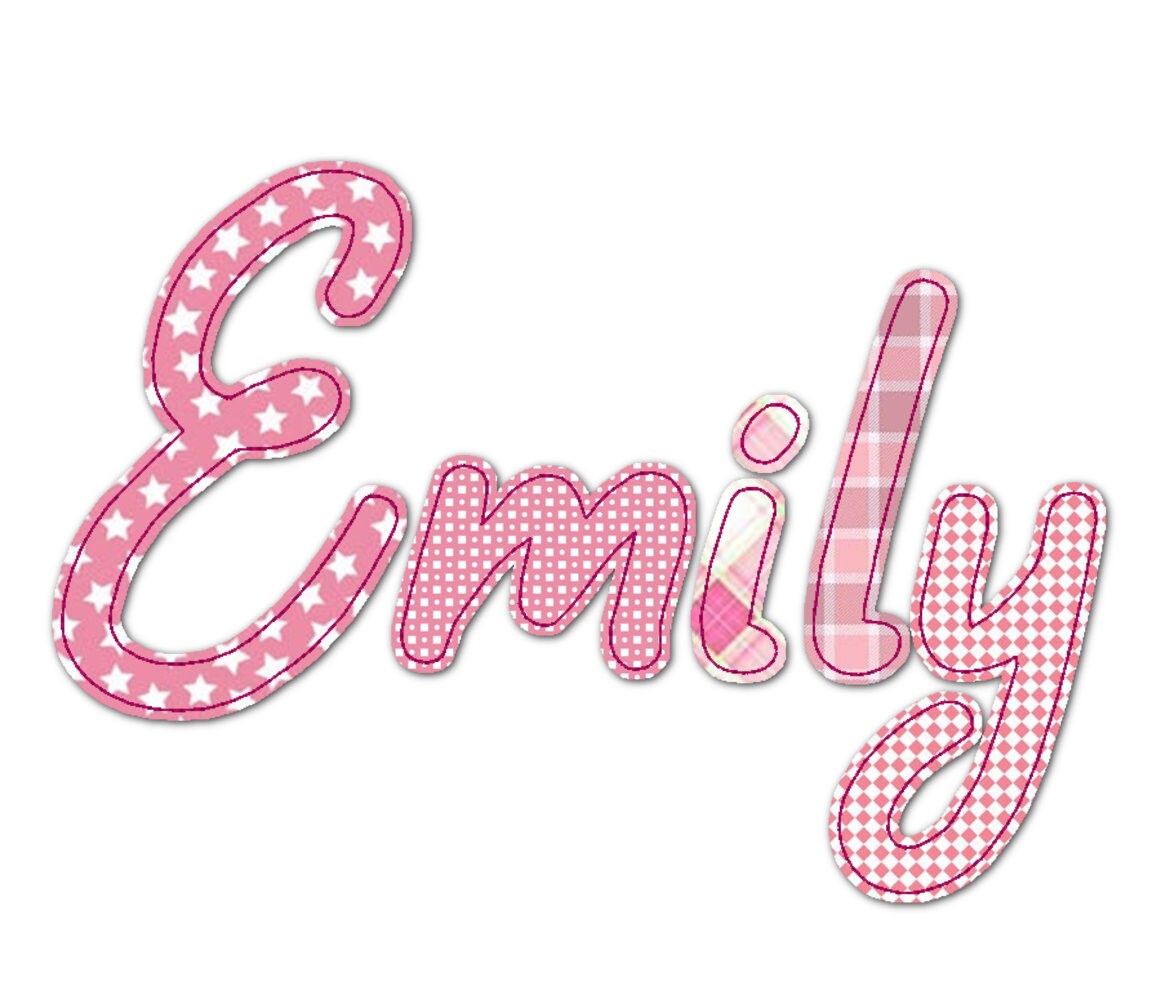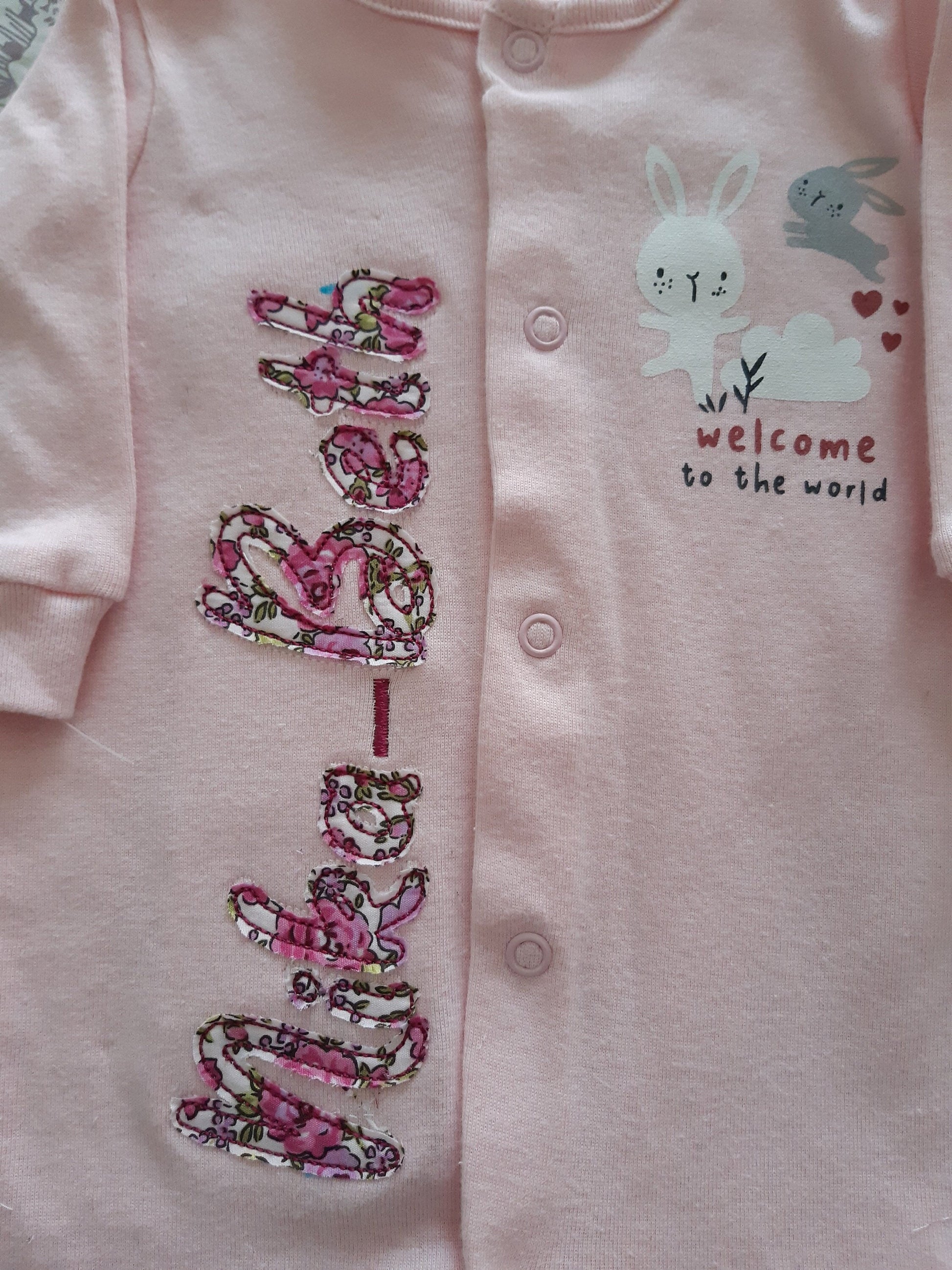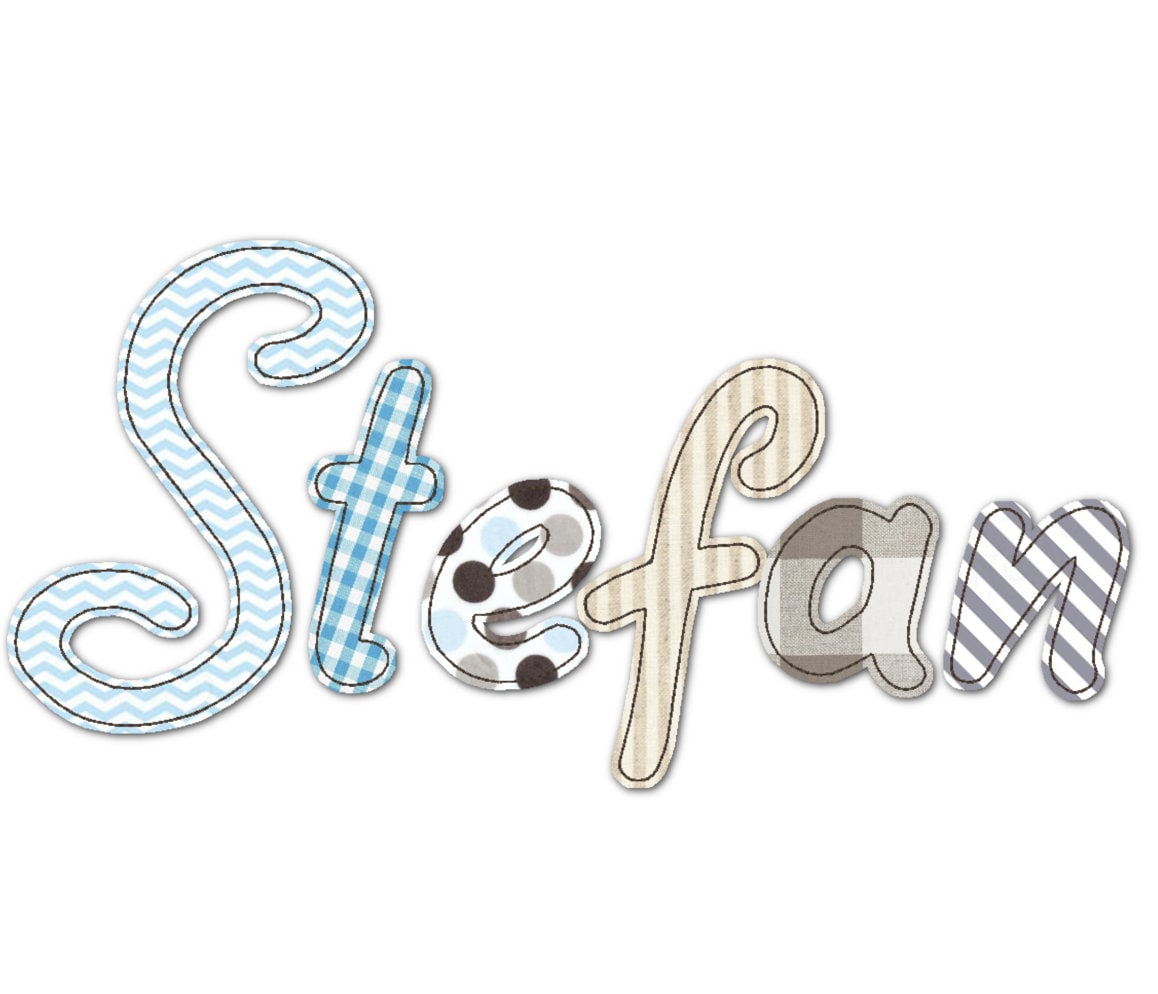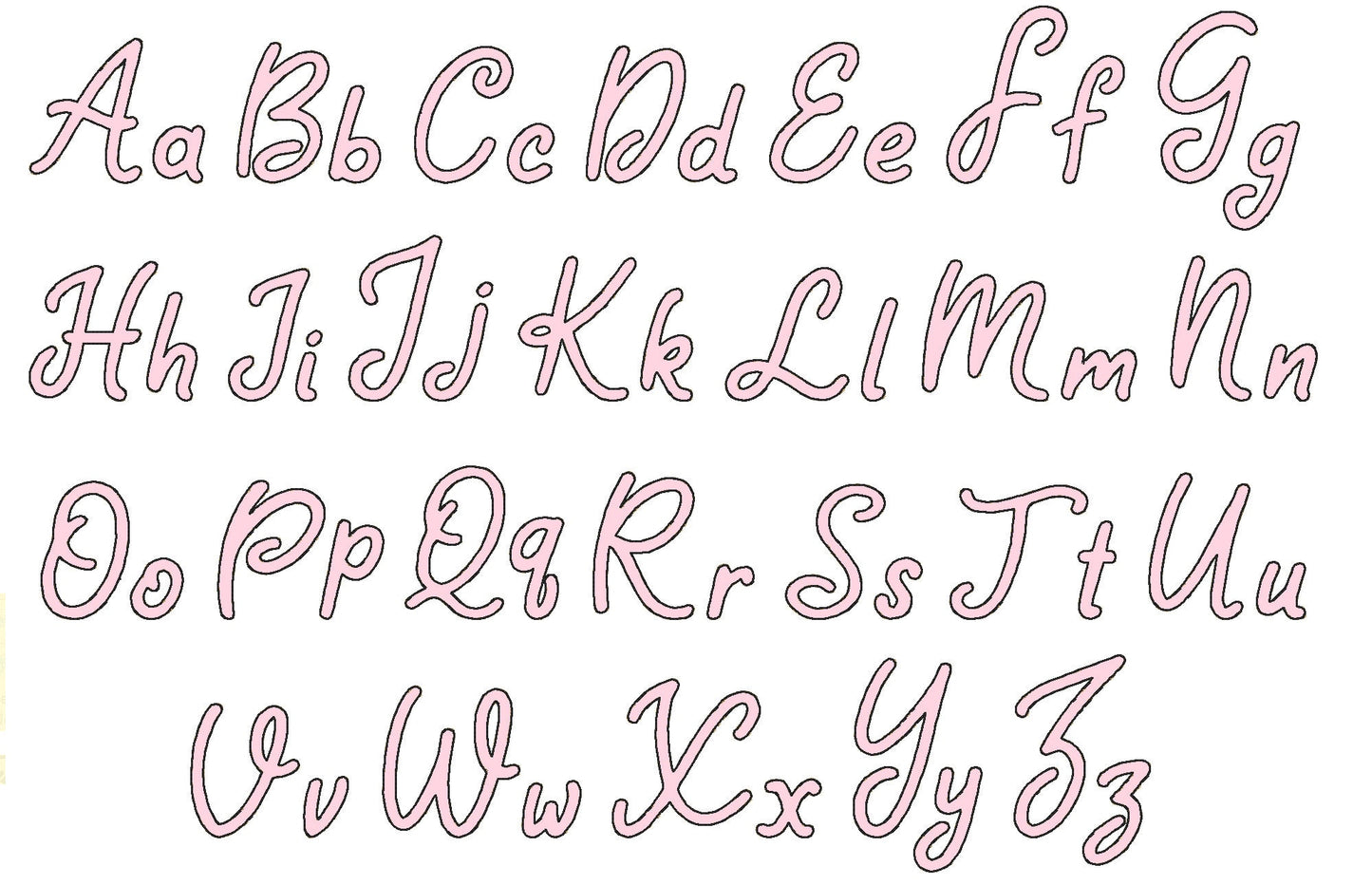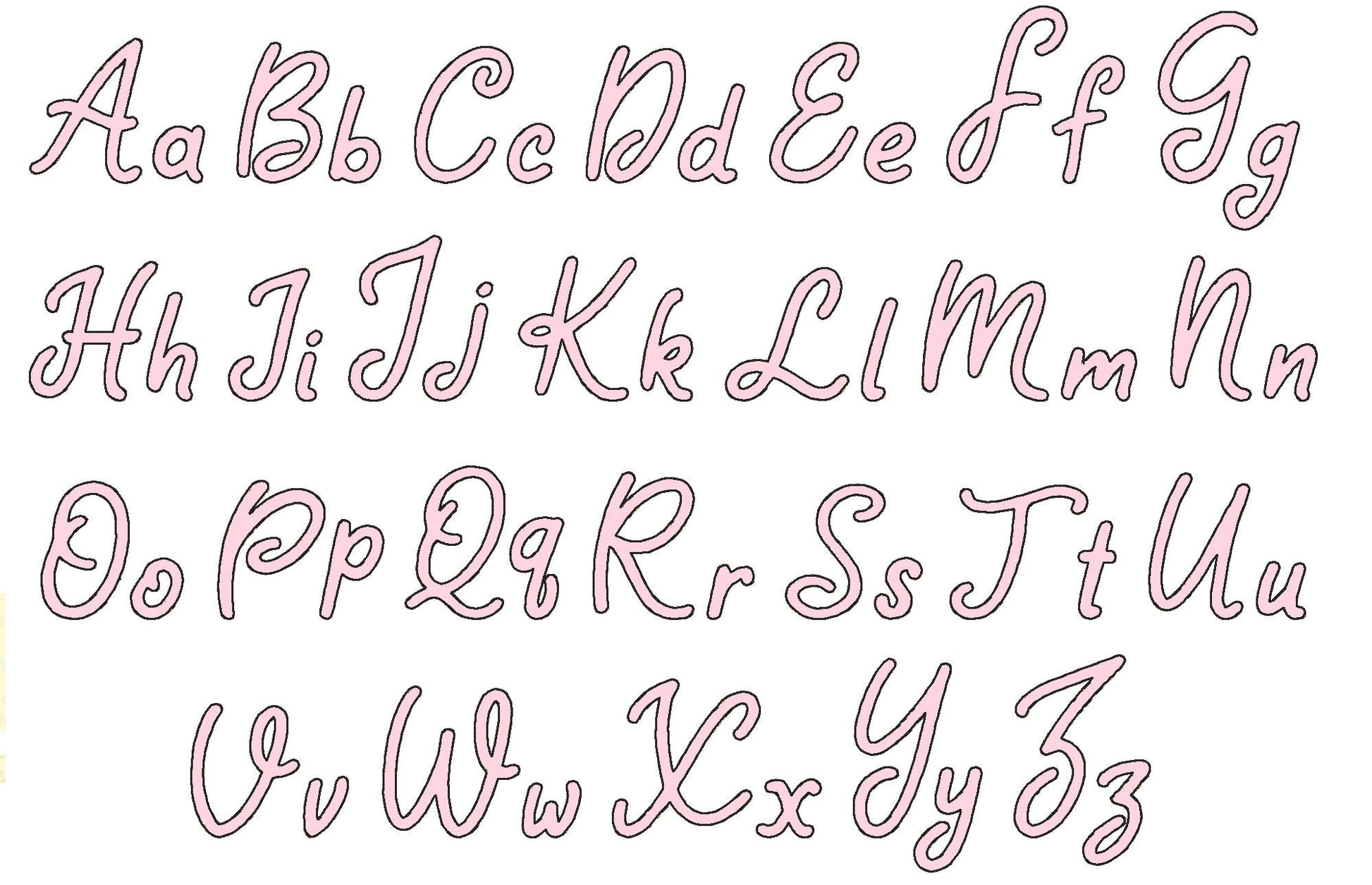
Cute design for a quick project
Sehr schöne Datei, einfach zu sticken, fehlerfrei.
I used this font to create a chenille appliqué it came out beautiful
These stitched out amazing. I have another jacket to do and I can't wait.
I love fonts like this! Super excited to use it!
Alors.... Je ne comprends pas trop pourquoi les tailles ne fonctionnent pas sur mon cadran! J'ai testé et bof j'aime pas! Trop petits, j'aurai aimé plus grand mais apparemment impossible avec mon cadran de 14x16cm sur aucune des tailles données. Dommage car c'était joli!
Sewed out beautifully! Excellent instructions!
Easy and fast stitch out!
Perfect design for my project.
The letters turned out so cute.
stitched out good for the design i was needing
Great font for little girls
Super Datei, lief einwandfrei und ohne Fehler
This stitched out beautifully for our annual lake reunion sweatshirts.
Hat super funktioniert 🤩.
Perfect appliqué!
Product (the lettering) confusing and unclear :( hard to follow for the inconstancy of the letters some dark some clear etc :(
Very good quality and stitch out beautiful!
The stitchout does not stop after placement stitch is goes directly into the bean stitch.
Loved it! Just as described.
I love this design. Sew simple
This stitches out just the way I like it. :)
Super cute and easy font to use!